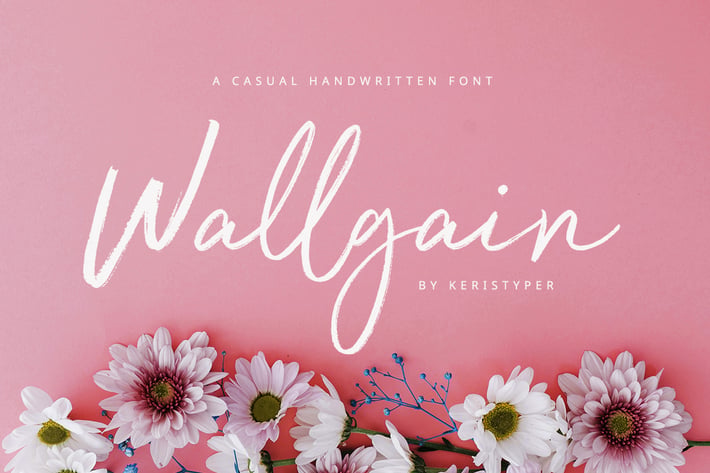
Wallgain Cassual Handwritten Font
Introducing Wallgain A rustic, dapper handwritten font with a personal touch. With quick dry strokes and a signature style.